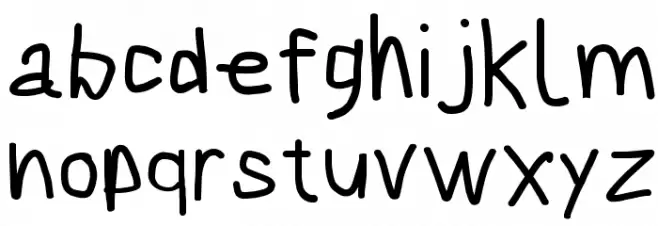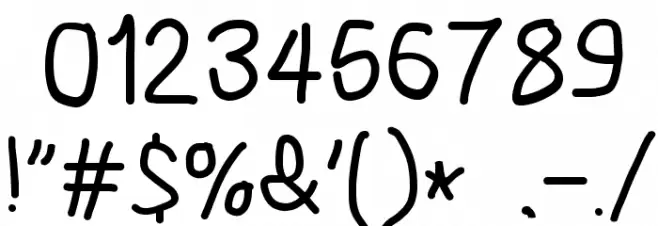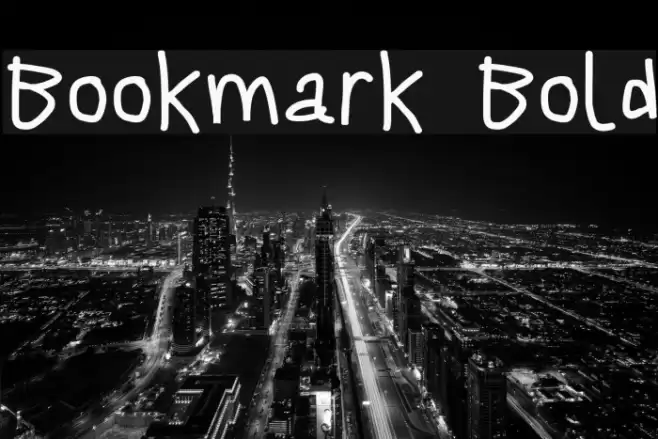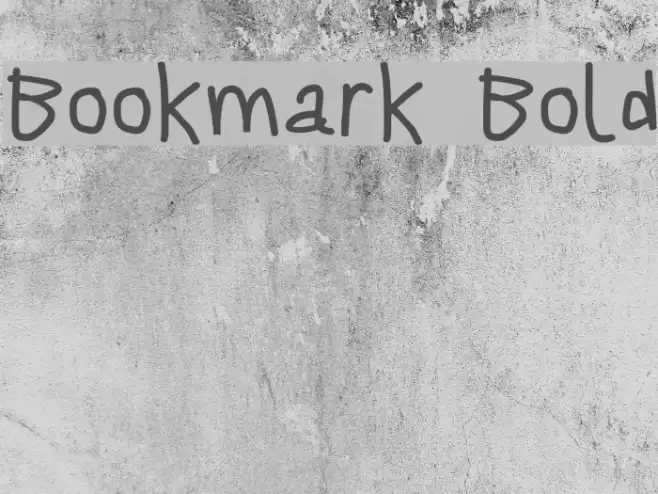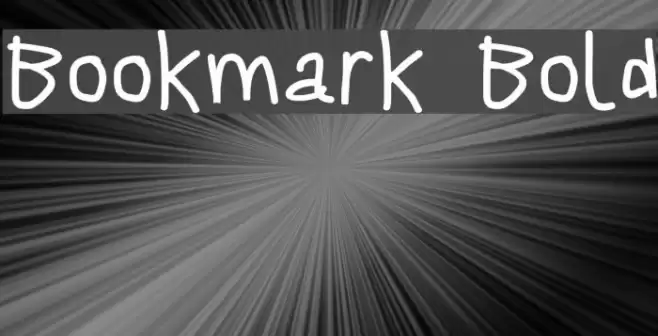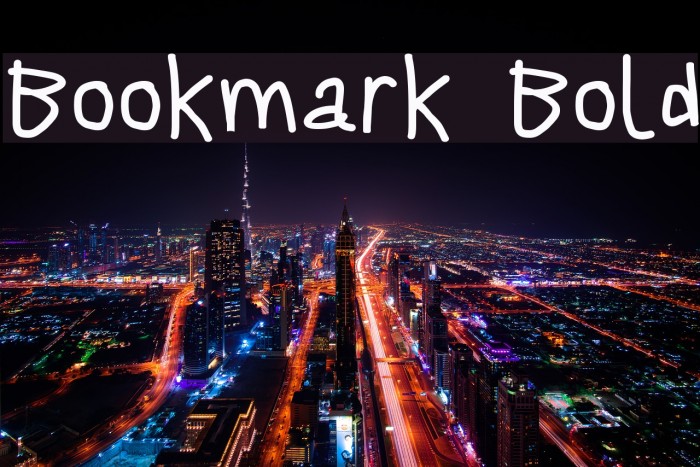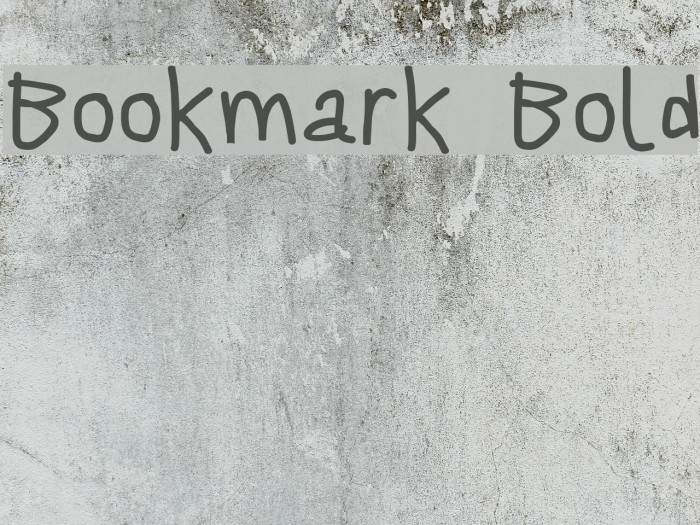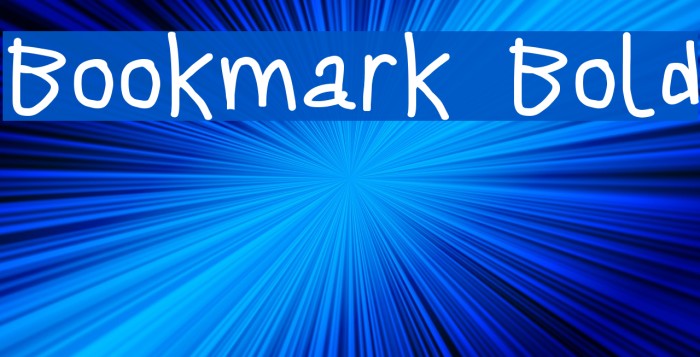
Bookmark Bold
This font features a playful and casual handwritten style, characterized by its rounded and slightly irregular letterforms. The uppercase and lowercase letters maintain a consistent flow, with a natural and friendly appearance. The numerals and special characters follow the same informal aesthetic, making the font suitable for projects that require a personal touch. The strokes are uniform in width, contributing to a harmonious and balanced look across all characters. This font is ideal for conveying a sense of warmth and approachability.
A playful, handwritten font with rounded, informal letterforms.
- Proposed Projects: Ideal for children's books, greeting cards, personal blogs, and informal branding.
- Overall Style: Casual
- Use Case: Headlines, Informal text, Personal projects